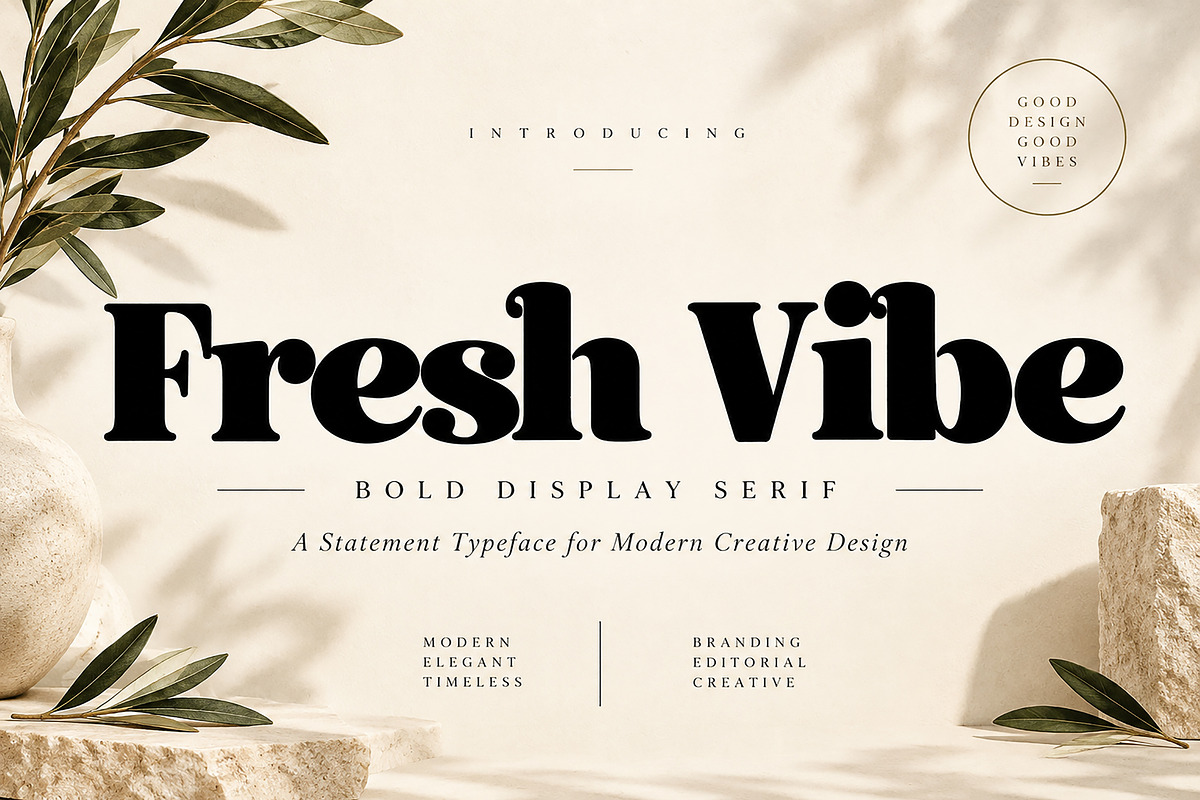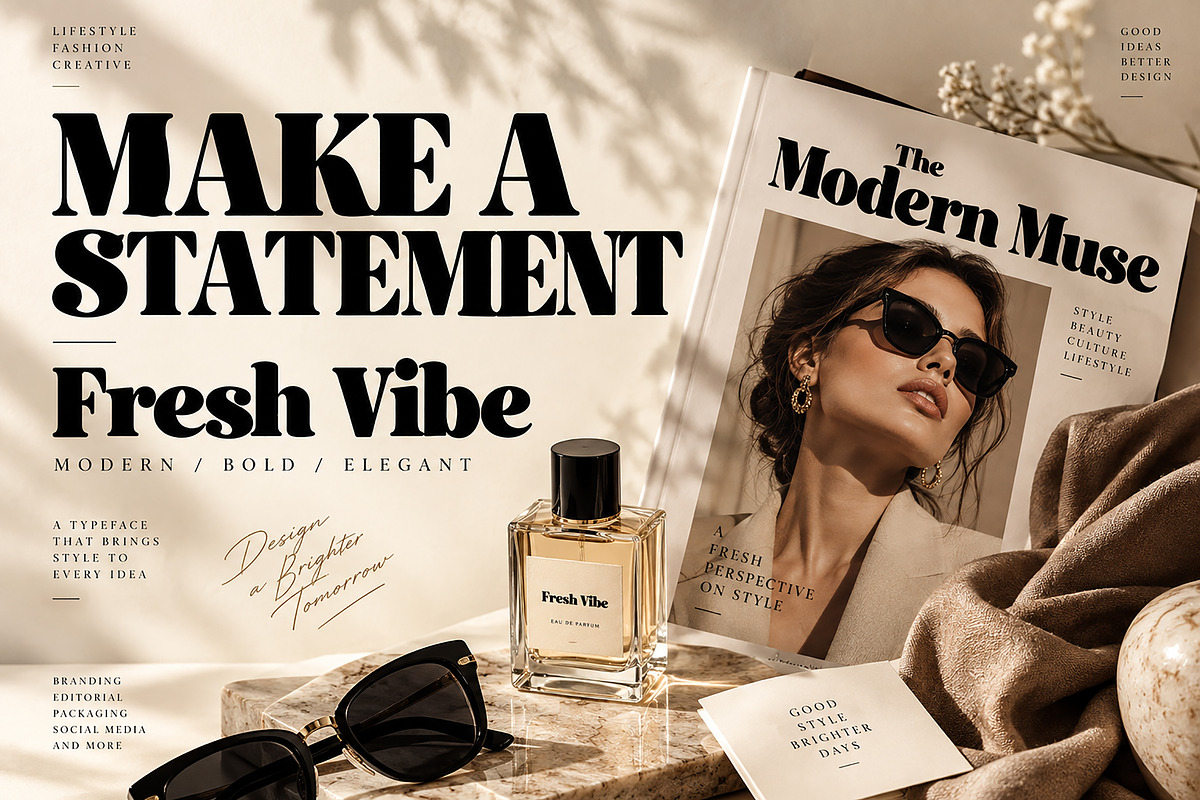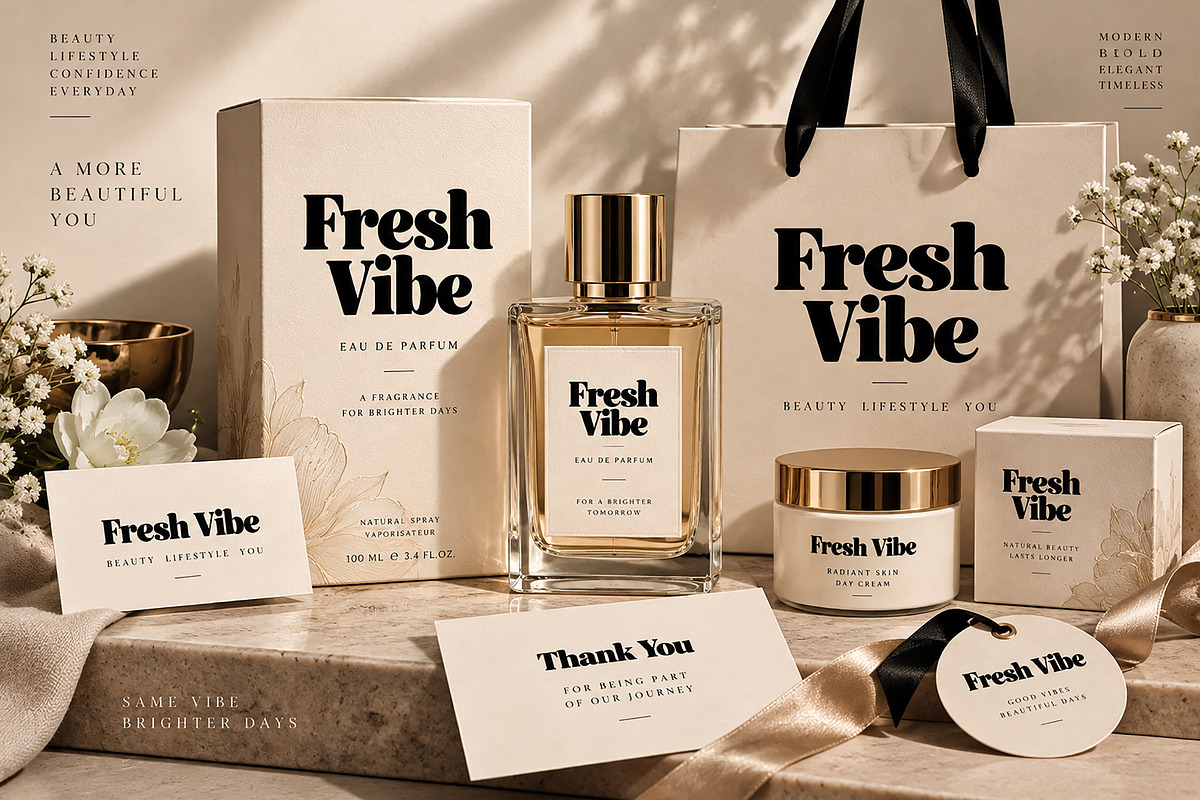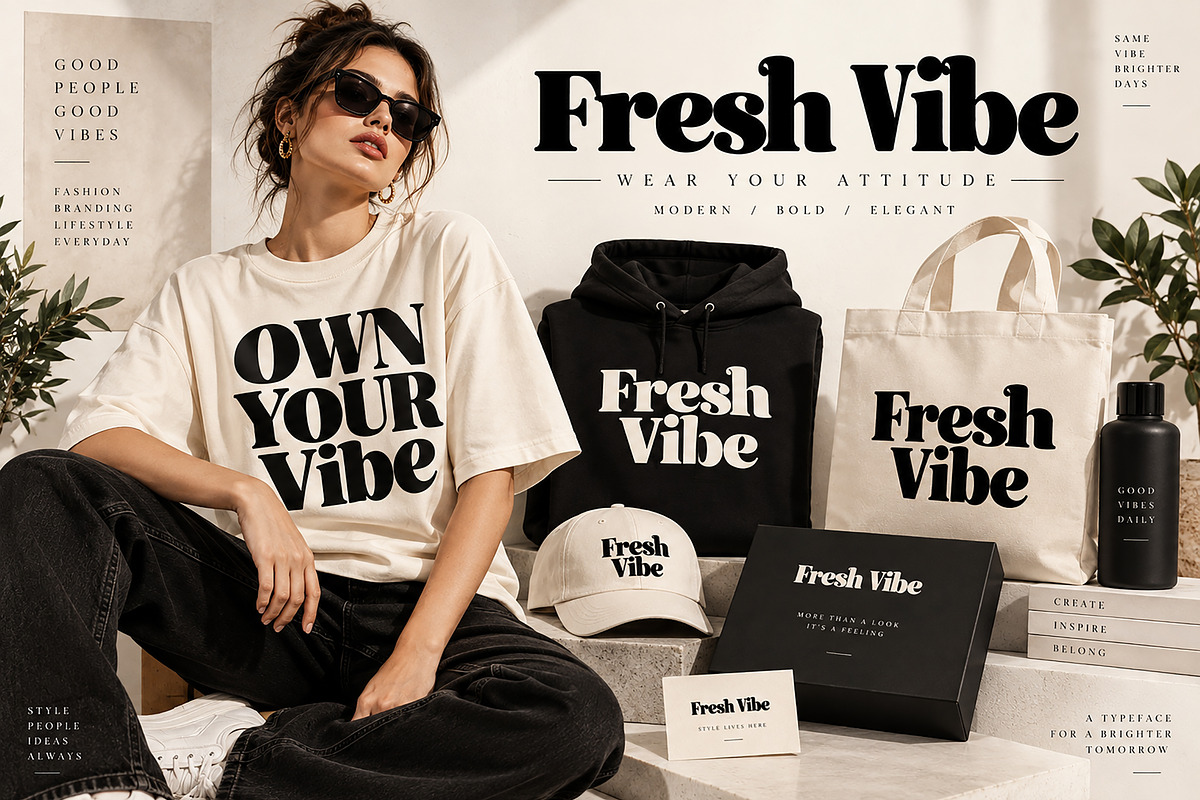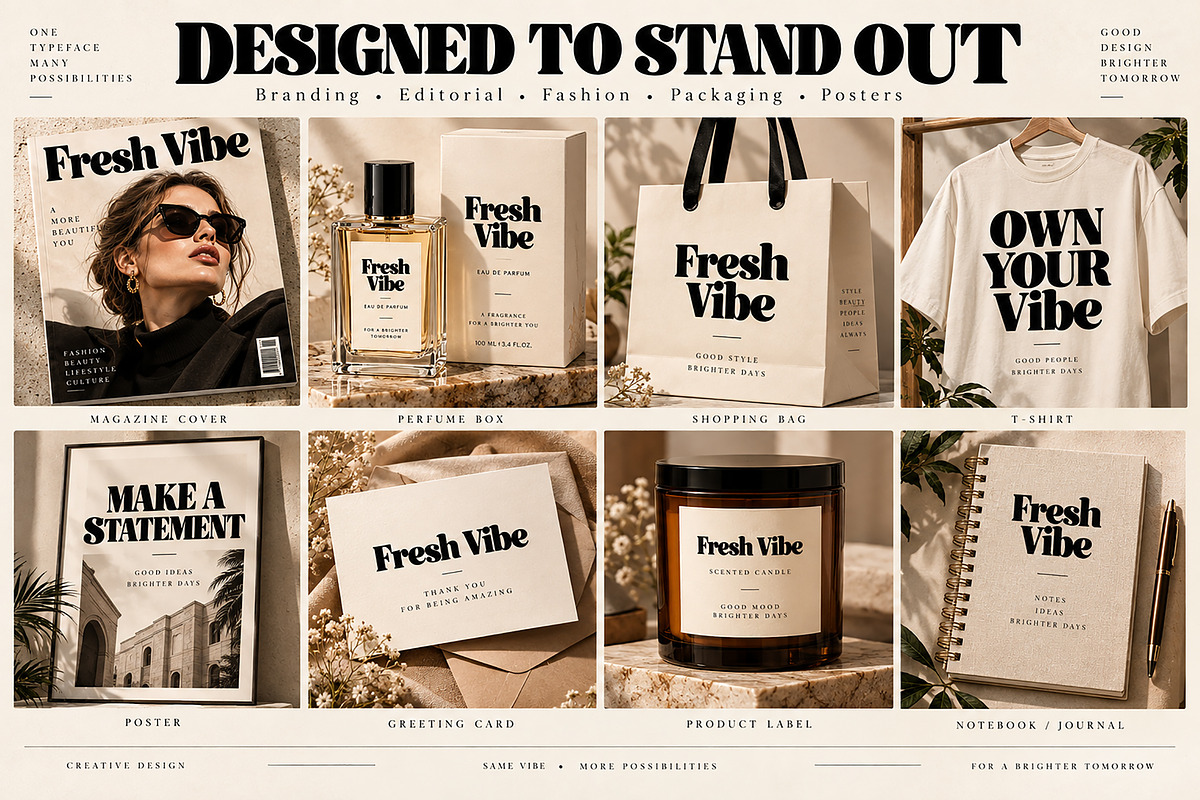
Fresh Vibe
Fresh Vibe is a bold and elegant display serif font designed to bring a stylish, expressive character to your creative projects. With its high-contrast letterforms, strong serifs, and distinctive curves, Fresh Vibe creates an eye-catching typographic presence while maintaining a sophisticated editorial feel.
Perfect for designers looking to create memorable logos, branding, fashion graphics, editorial layouts, posters, packaging, product labels, social media designs, invitations, magazines, apparel, and lifestyle projects.
Fresh Vibe works especially well for modern fashion brands, beauty products, luxury packaging, magazine headlines, statement posters, and creative branding where typography needs to stand out.
Logo & Brand Identity
Fashion Branding
Beauty & Cosmetic Design
Editorial & Magazine Design
Posters & Headlines
Product Labels
T-Shirts & Apparel
Invitations & Stationery
Advertising & Promotional Designs
Lifestyle & Boutique Branding
Style: Bold Display Serif